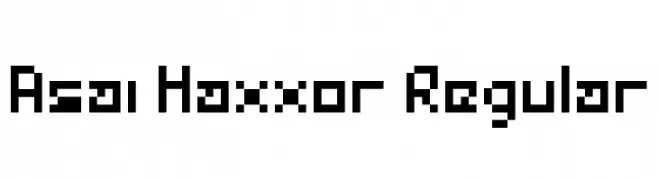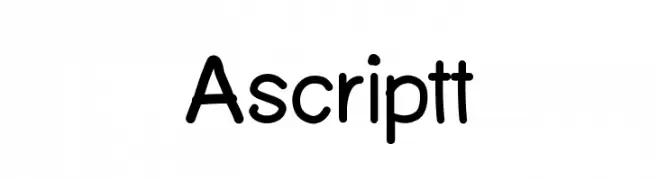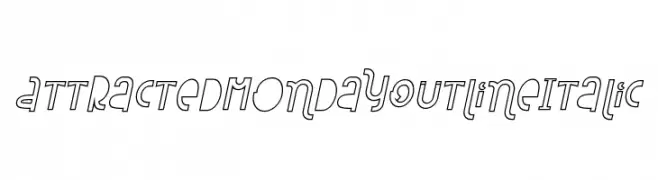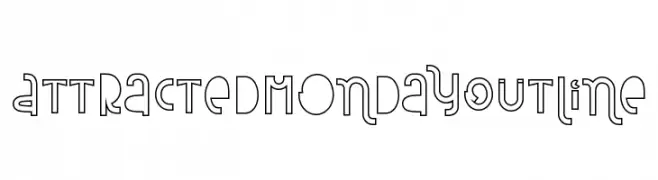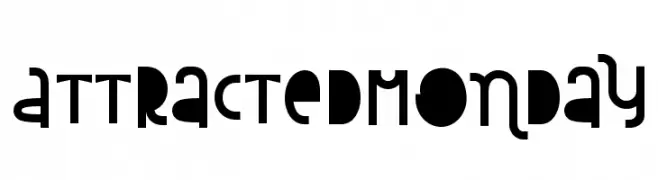
( Andre Asai - www.andreasai.com )
A pixelated, blocky font with a retro digital style.
( Ana Guerra - www.behance.net/anaguerraa )
A playful, handwritten font with rounded, bold characters and a casual style.
( Amar Lettering - creativemarket.com/Amarlettering )
An elegant script font with flowing, cursive letterforms and a sophisticated flair.
( Aleksandar Stevanov - www.behance.net/Stevanov )
Decorative astronomy-themed font with stars and moon phases.
( Anthony Robinson - www.redbubble.com/people/anfa/portfolio )
A playful, outlined font with characters enclosed in circles, offering a unique geometric style.
( Attype Studio - Fadli Ramadhan Iskandar - thehungryjpeg.com/attype-studio/ )
An elegant script font with flowing, interconnected letters and ornate flourishes.
( 7NTypes - Situjuh Nazara - 7ntypes.com )
A bold, artistic font with unique geometric elements and playful design.
( 7NTypes - Situjuh Nazara - 7ntypes.com )
A bold, high-contrast italic font with dynamic and unique character shapes.
( 7NTypes - Situjuh Nazara - 7ntypes.com )
A modern, geometric outline font with artistic flair.
( 7NTypes - Situjuh Nazara - 7ntypes.com )
A modern, italicized outline font with a playful and dynamic style.